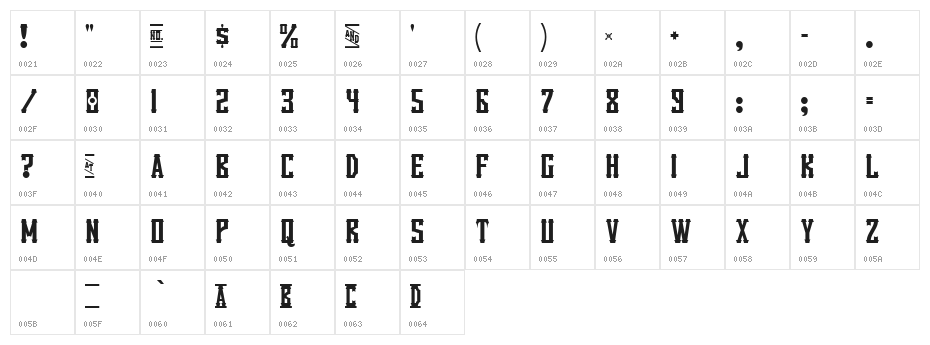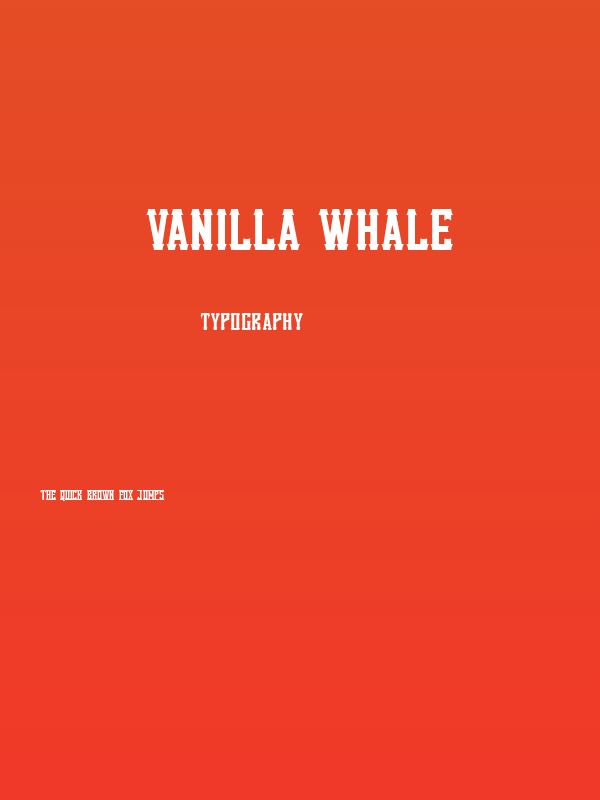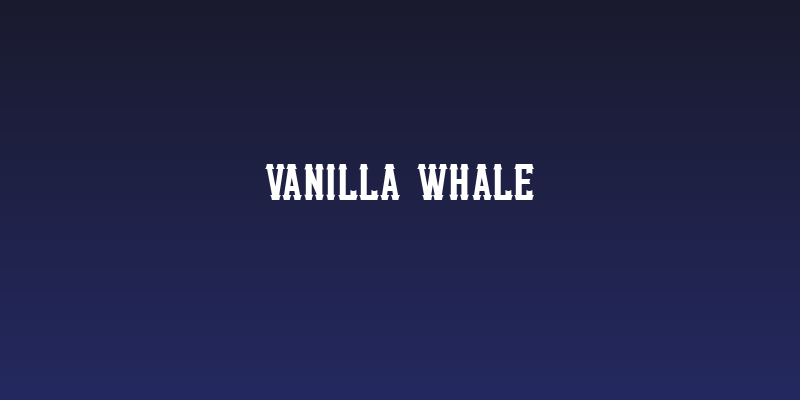
Vanilla Whale Font
Vanilla Whale Description
This font features a bold and striking design with a distinctly decorative style. The characters are heavily stylized with sharp, angular edges and a strong presence. The uppercase letters are particularly prominent, with a robust and commanding appearance. The numbers and special characters maintain this bold aesthetic, adding to the font's overall impact. The font's unique design elements make it stand out, with intricate details that give it a vintage yet modern feel. It is well-suited for projects that require a strong visual statement.
| Proposed Projects | Ideal for posters, logos, branding, and headlines that require a bold and decorative touch. |